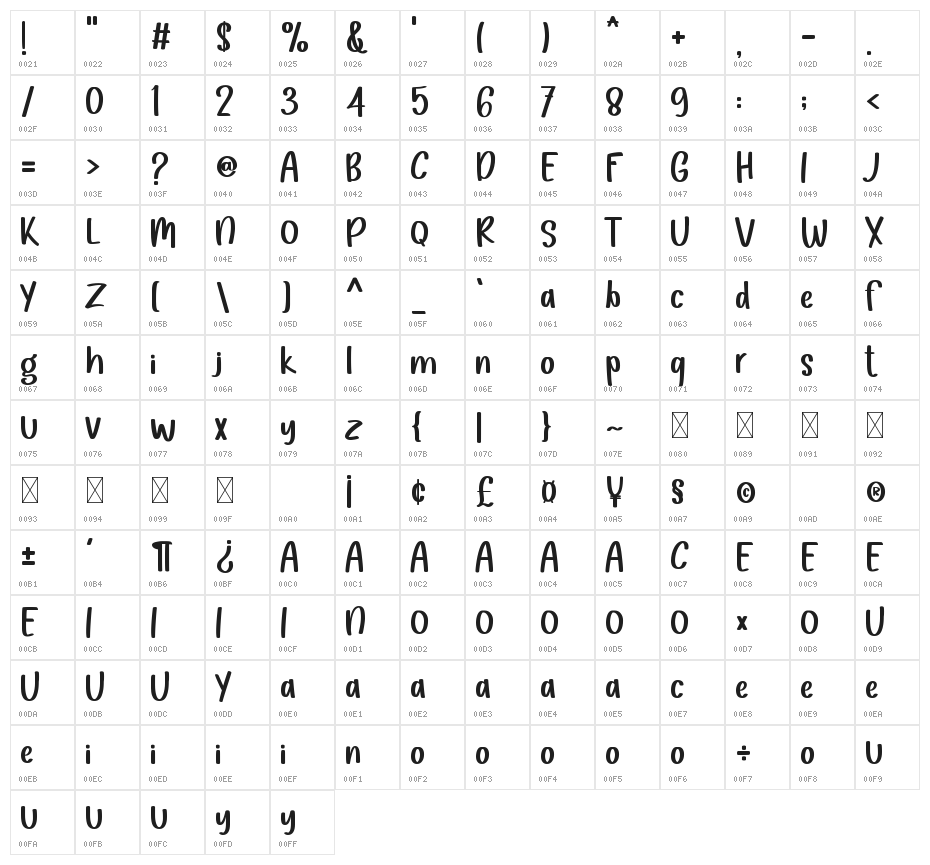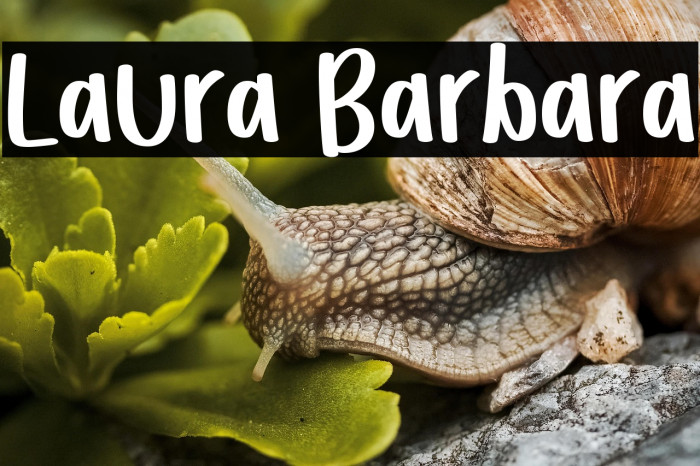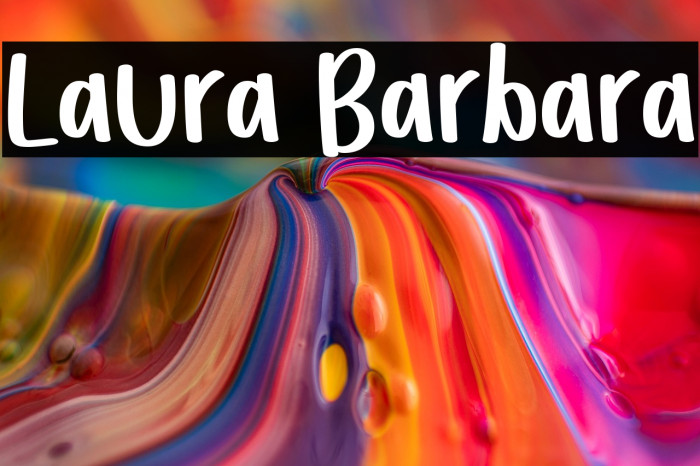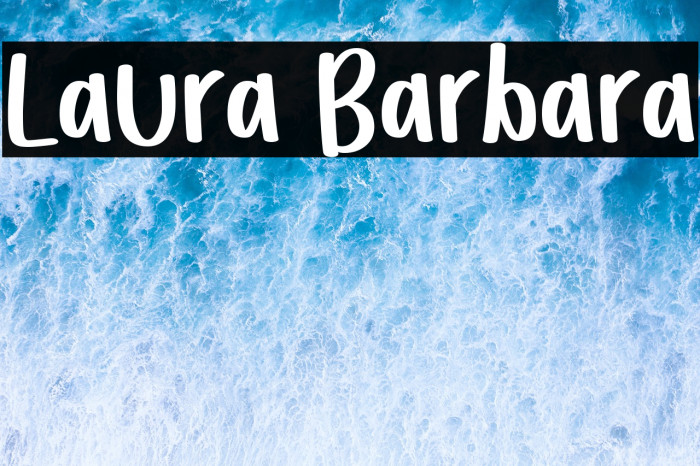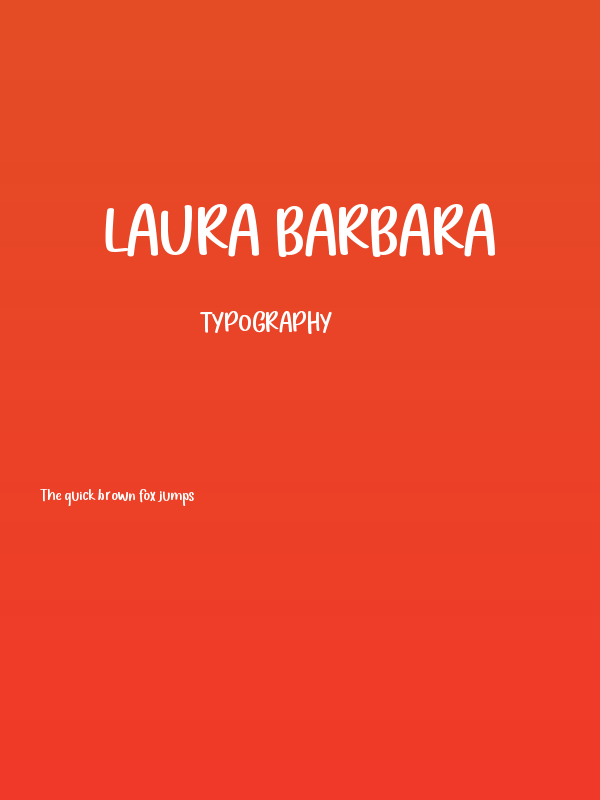
Laura Barbara Font
Laura Barbara Description
A playful, handwritten font with rounded edges and a casual style.
| Use Case | Headlines, Informal text, Branding |
| Proposed Projects | Greeting cards, invitations, casual branding. |